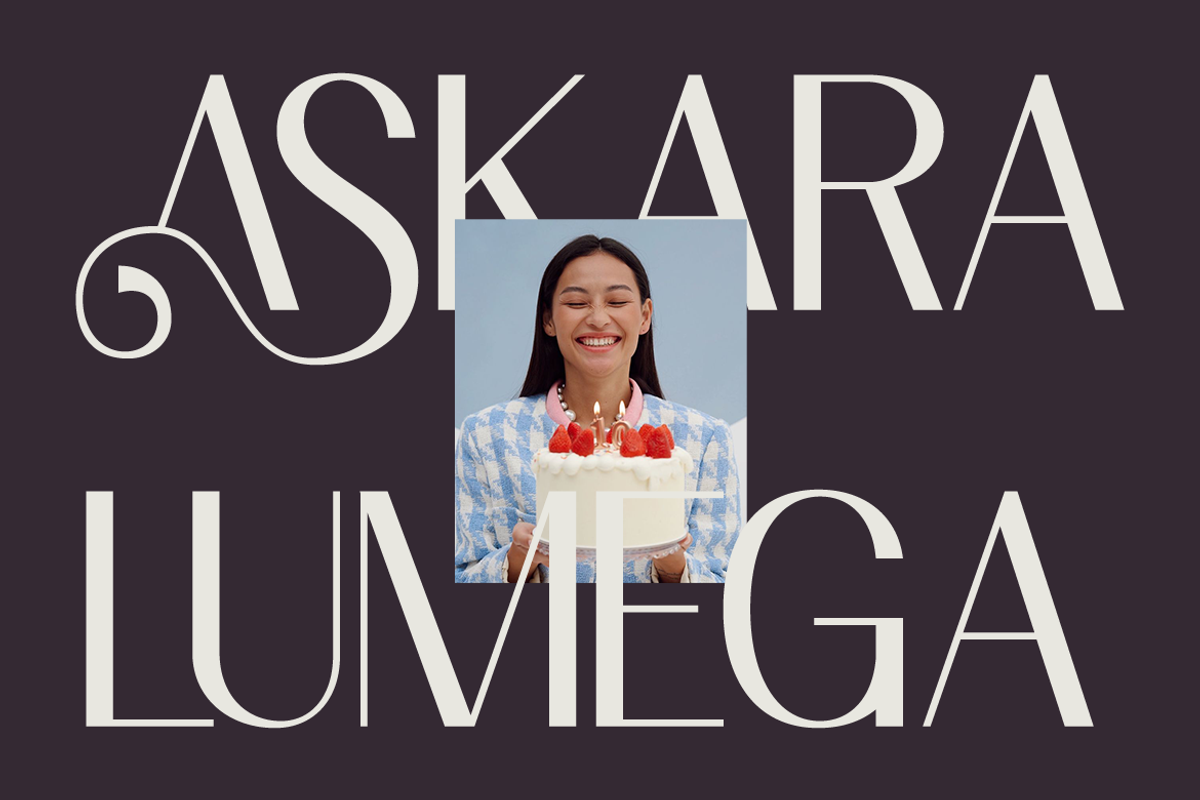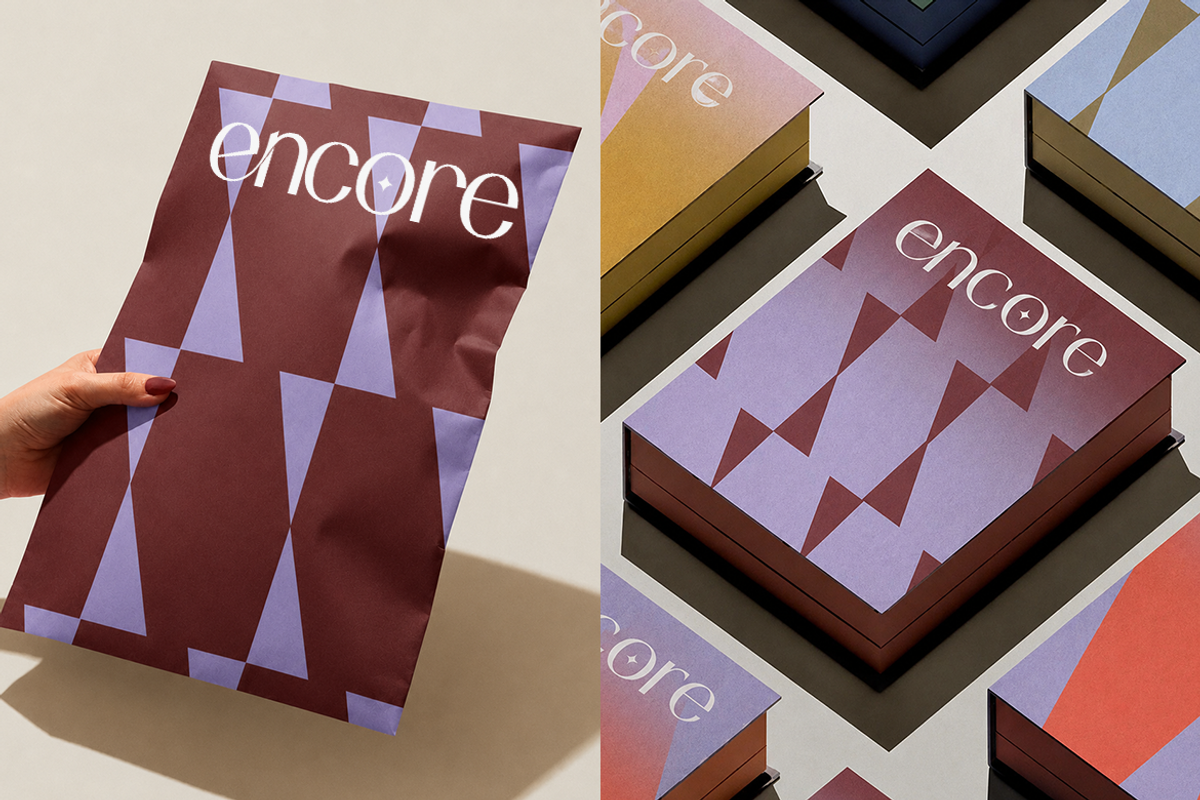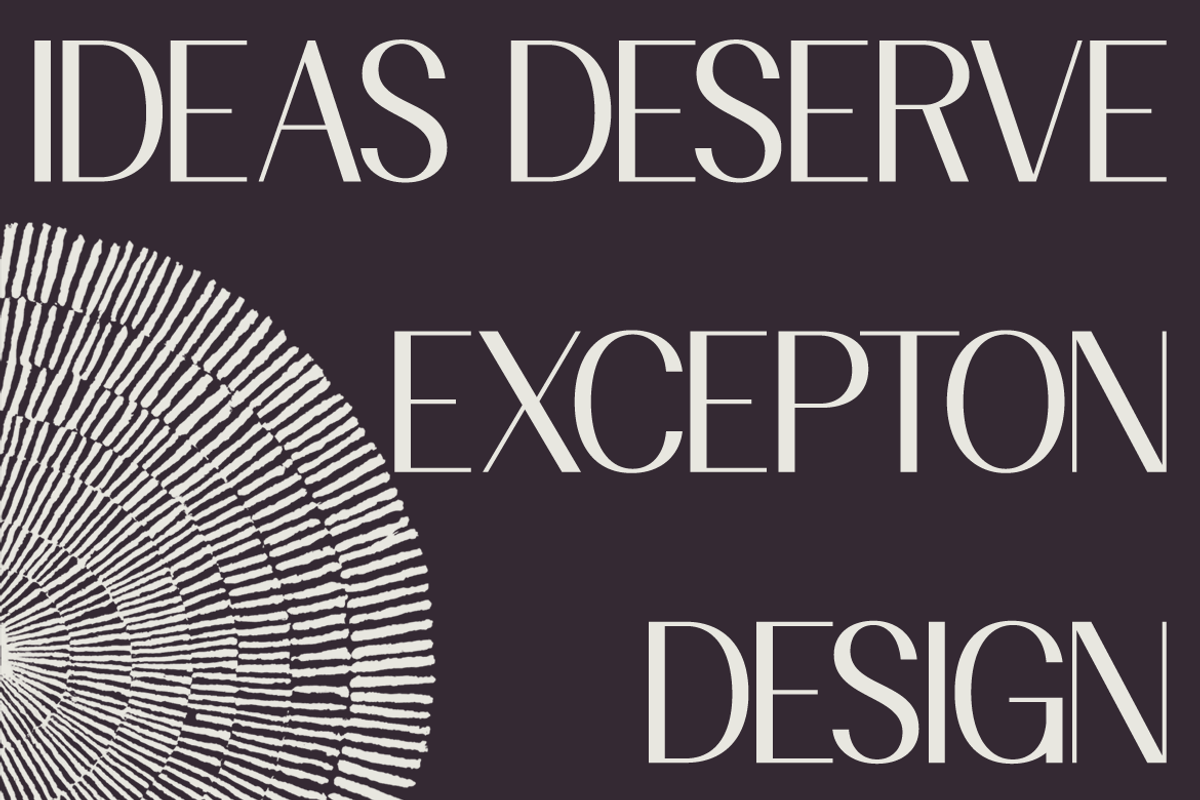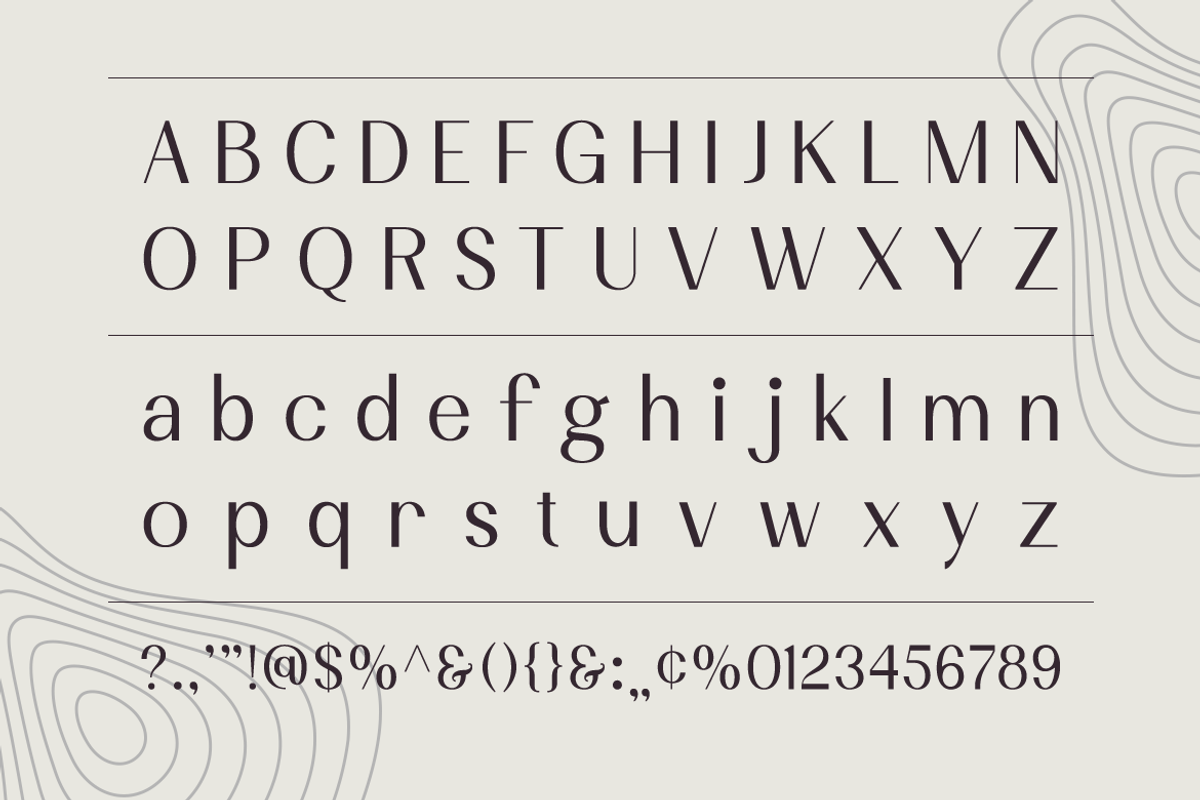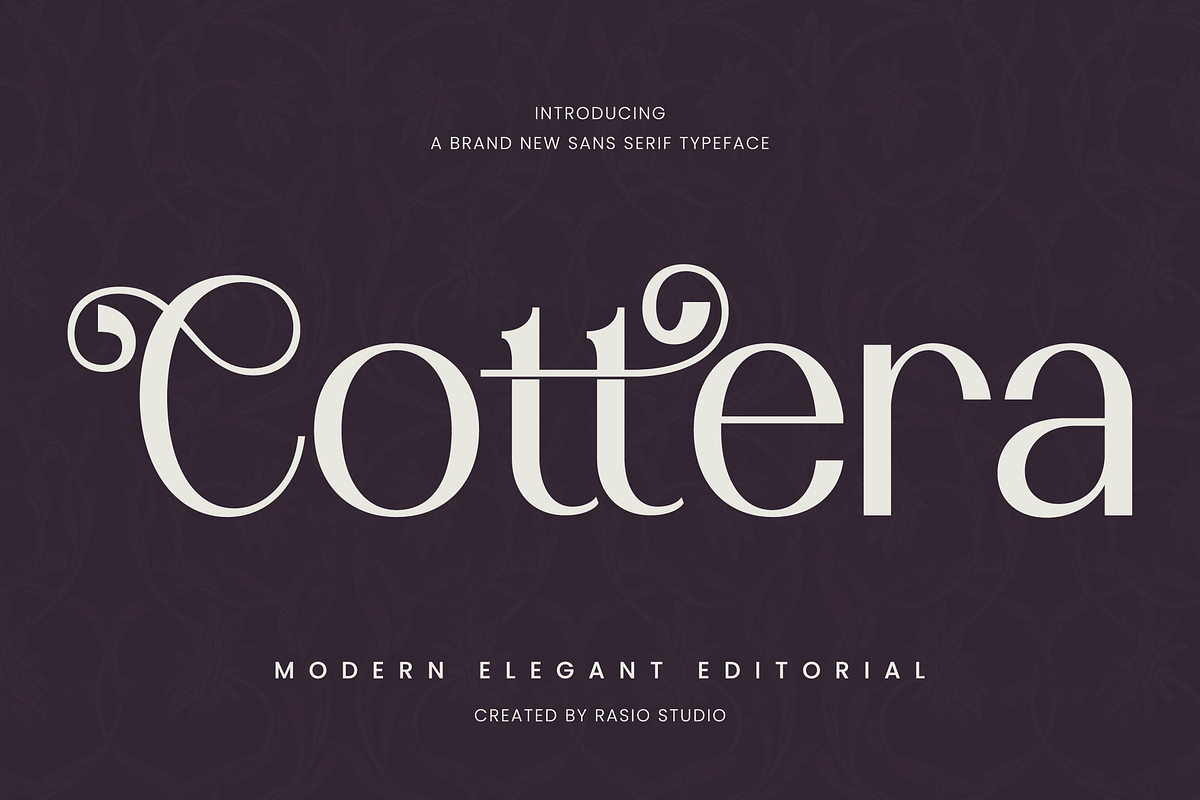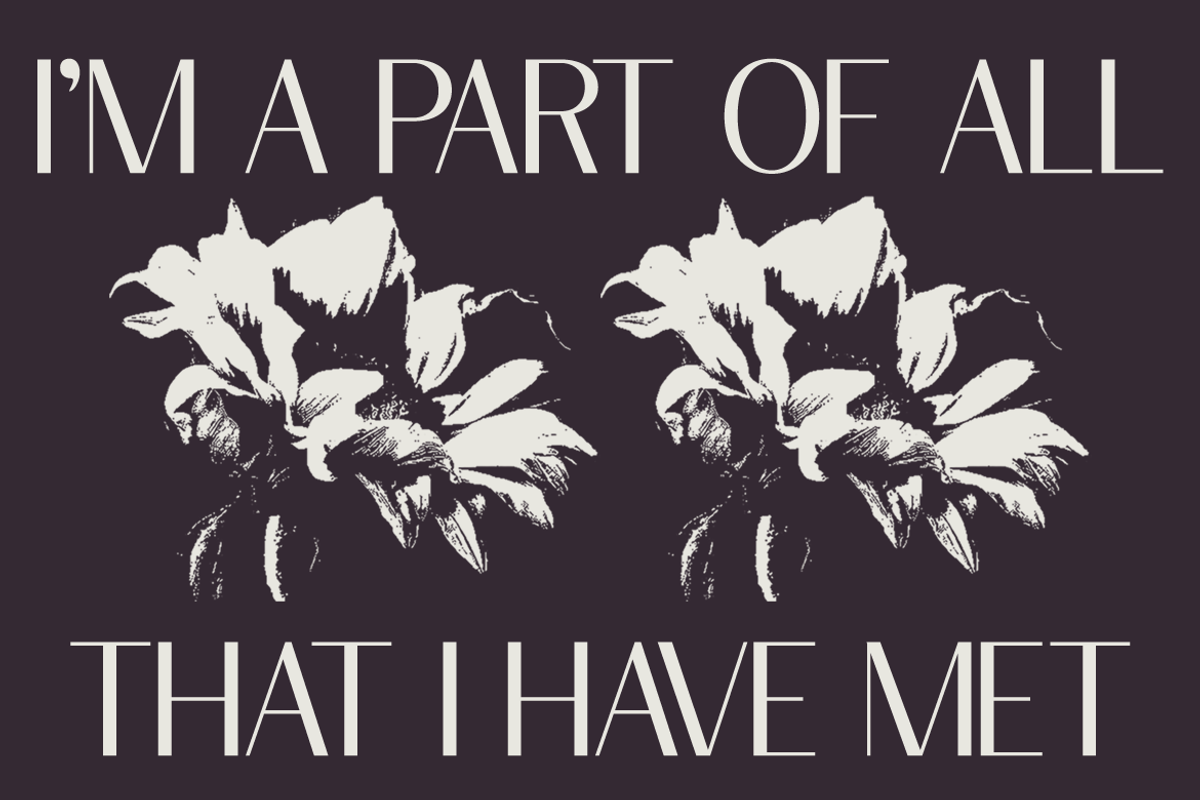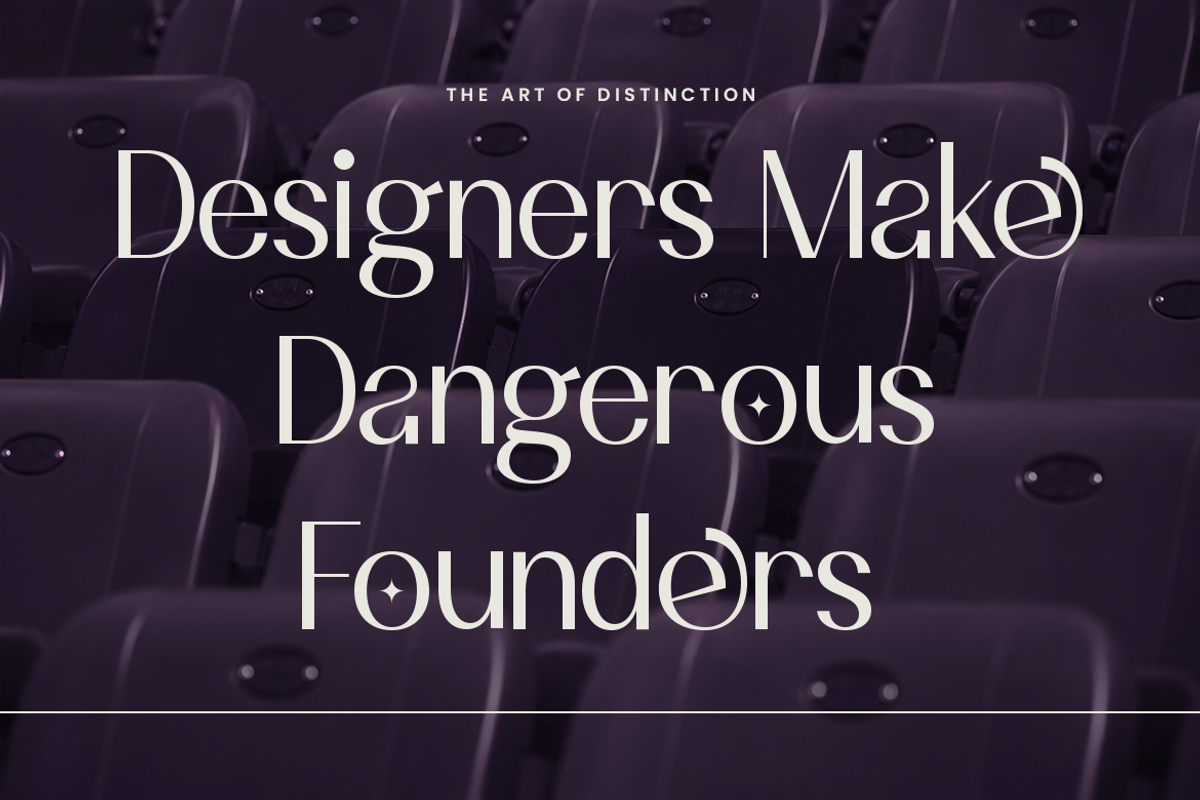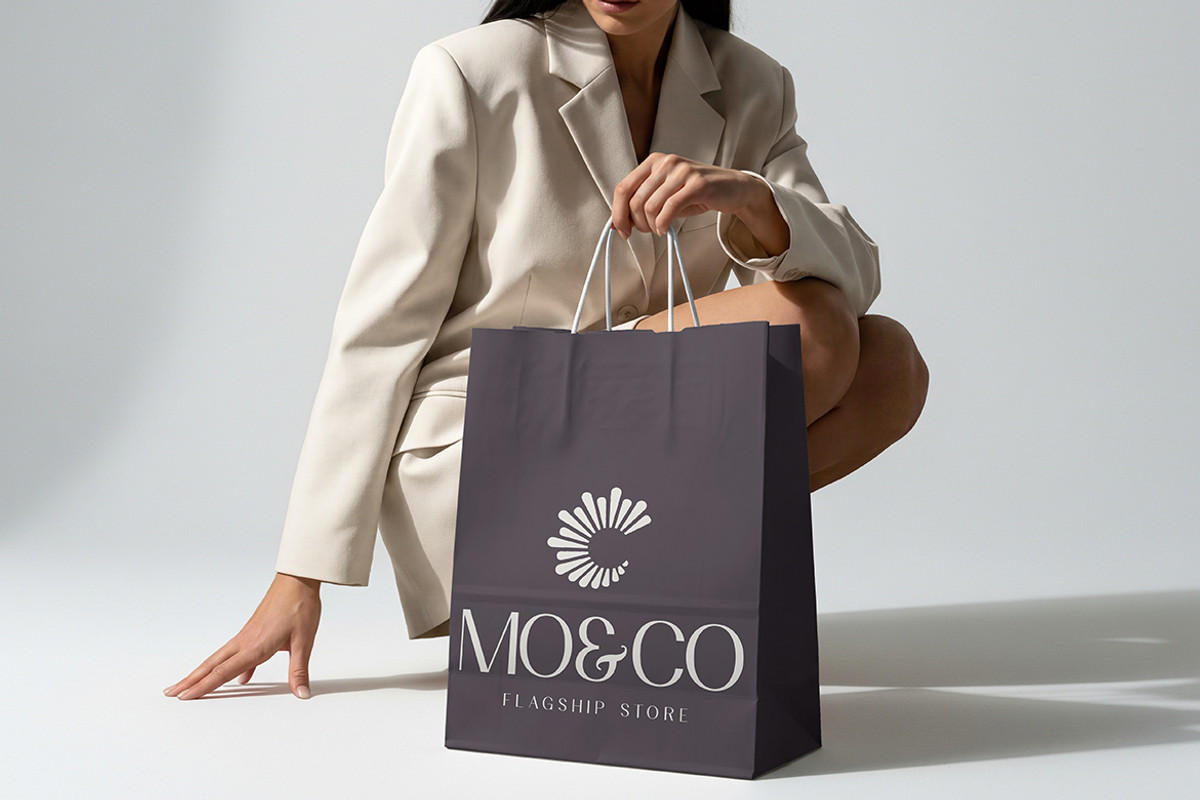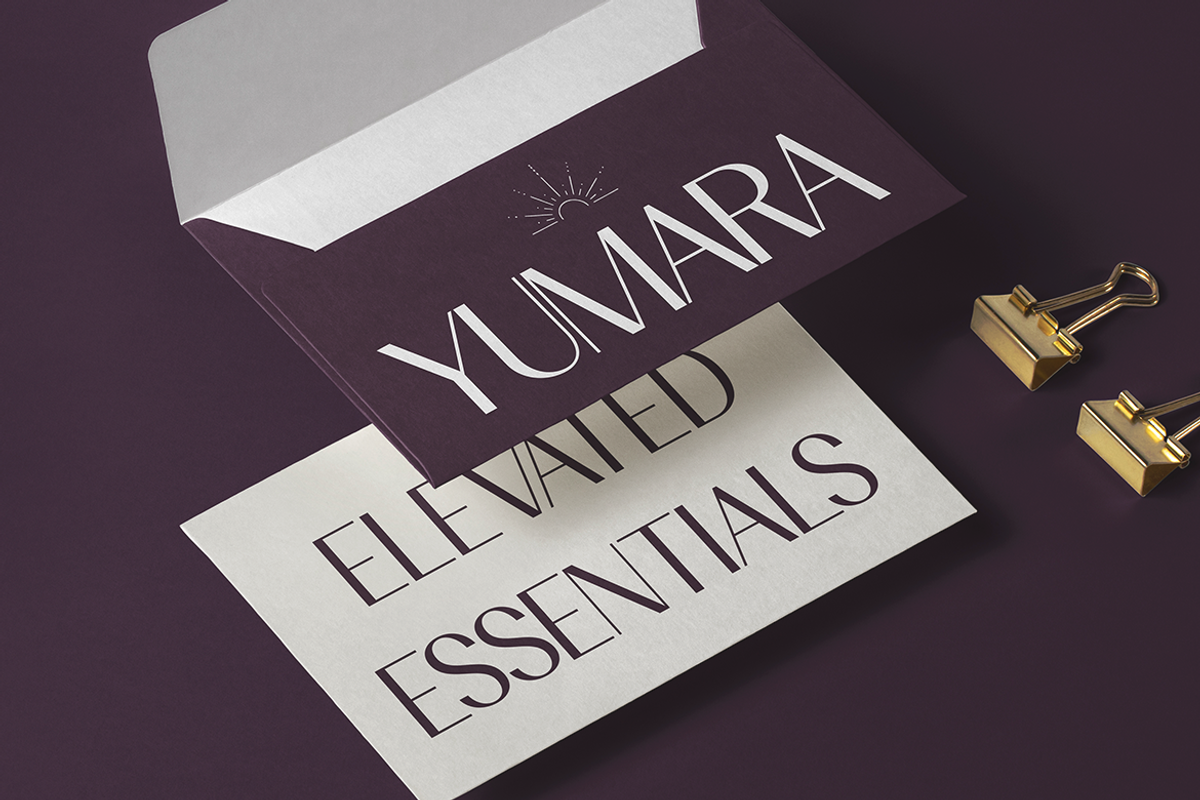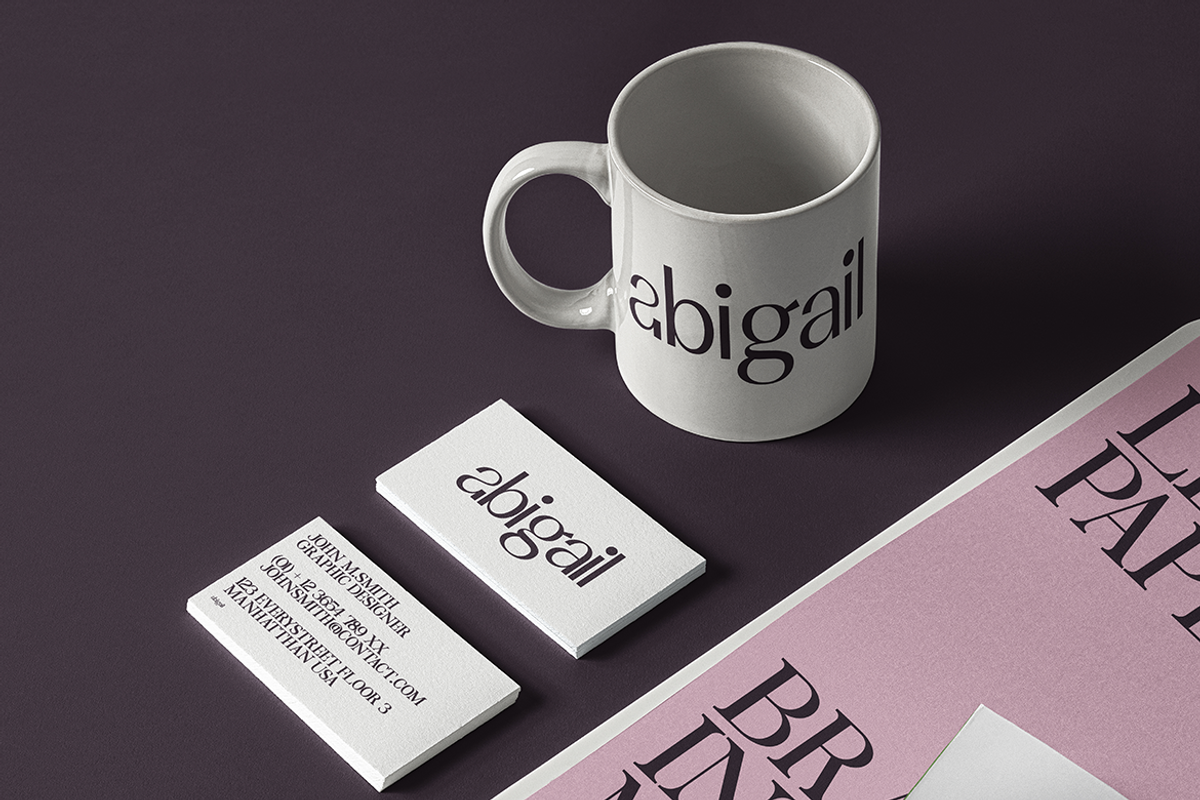
Cottera Modern Editorial Sans Font
Cottera Modern Editorial Sans Font is a sophisticated editorial typeface defined by graceful curves, refined stroke contrast, and distinctive decorative letterforms. Its elegant serif construction combines classic typographic influence with a contemporary visual approach, creating a balanced personality that feels luxurious, artistic, and expressive. Carefully shaped terminals, flowing details, and slender proportions give the font a polished rhythm, while selected ornamental forms add a memorable character to prominent words and display typography.
Designed to create an elevated visual presence, Cottera works especially well in compositions where typography becomes a central design element. The font includes uppercase and lowercase characters, numerals, and punctuation, providing essential versatility for professional creative projects. Its refined structure brings sophistication to luxury branding, editorial headlines, fashion identities, beauty packaging, wedding stationery, magazine layouts, and premium promotional content. Whether displayed at a large scale or paired with a clean supporting typeface, Cottera helps create elegant typography with a distinctive, timeless, and confident visual character across print and digital environments.
Elegant editorial serif structure with graceful curves and refined proportions
Decorative swashes and expressive terminals add a distinctive ornamental character
High stroke contrast creates a sophisticated rhythm across large display typography
Sculpted letterforms blend classical serif influence with contemporary styling
Slender details and flowing extensions enhance visual movement and artistic personality
Luxury brand identities seeking an elegant and artistic visual character
Editorial magazines, fashion publications, and sophisticated headline layouts
Beauty, fragrance, jewelry, and premium product packaging
Wedding stationery, invitations, and refined event branding
Boutique logos and feminine visual identity projects
Supports numerals, punctuation, and extensive symbol set